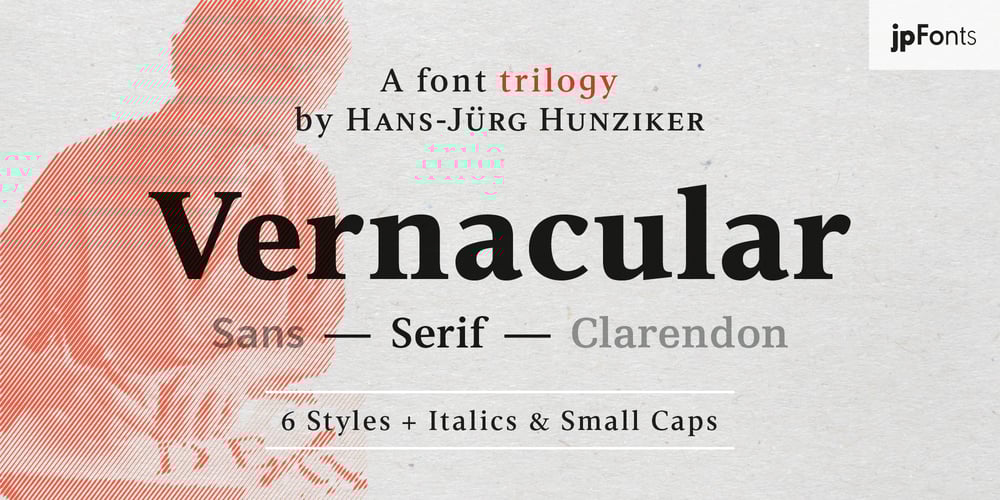
Vernacular Serif Font Family was designed by Volker Schnebel, Hans-Jürg Hunziker and published by jpFonts. Vernacular Serif contains 12 styles and family package options. The Vernacular trilogy was designed by Swiss designer Hans-Jürg Hunziker, who had worked for Adrian Frutiger in Paris for many years. Based on the concept of a transitional Linear Antiqua, he has developed a colorful bouquet of typefaces that contain the entire spectrum of typefaces for book design and corporate identity. Thanks to his “Swiss school” and his outstanding skills, he has succeeded in giving the typefaces a particularly noble and sympathetic expression.In addition to the Sans family, there is a Serif family and a Clarendon family, each of which, including the separately drawn italics, is equipped with 12 font weights that are finely tuned to one another. Each of the 3 font styles develops its own character, but thanks to a concept that brings the different font styles closer together, they also work well together and complement each other perfectly.Sans and Clarendon have a vertical axis and similar endings in contrast to the Serif, which has a traditional diagonal axis and horizontal endings. The straight stems and the proportions are used as an element to stress the closeness of the typeface-trilogy. They thus share a comon feature.All fonts contain tabular and proportional figures as well as old style figures. Small caps and small cap figures are also available in all fonts. In addition, some fonts have alternative characters available via style set, such as «g», which can be used to further vary the typeface. Vernacular offers all the options for well-kept typesetting for print and web – for small and large orders.